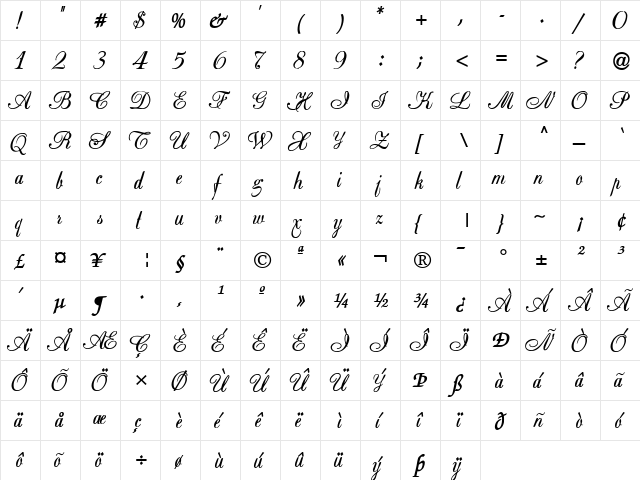
Basic Class A SP Bold Regular
Design Context for Basic Class A SP Bold Typeface
Basic Class A SP Bold is a composed and adaptable typeface that performs quietly and consistently across a wide range of design contexts. Its bold stroke weight gives it real presence on the page.